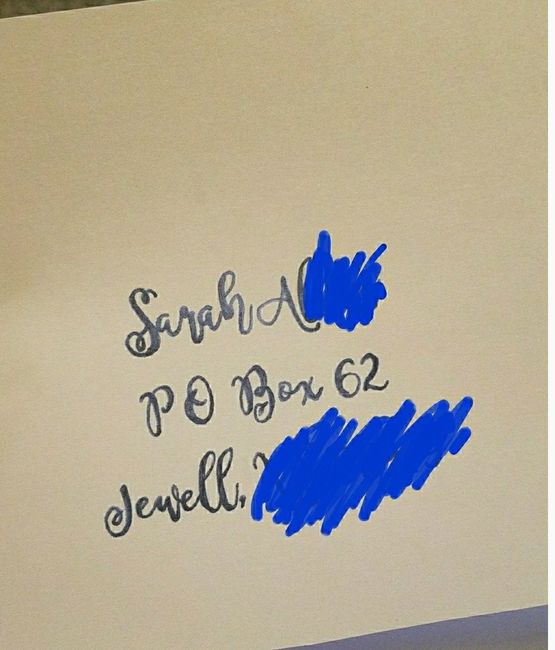
Brush Font Calligraphy Help
Does anyone have experience with brush pens? I'm planning on addressing all of our envelopes myself and started practicing a brush style calligraphy over the weekend....